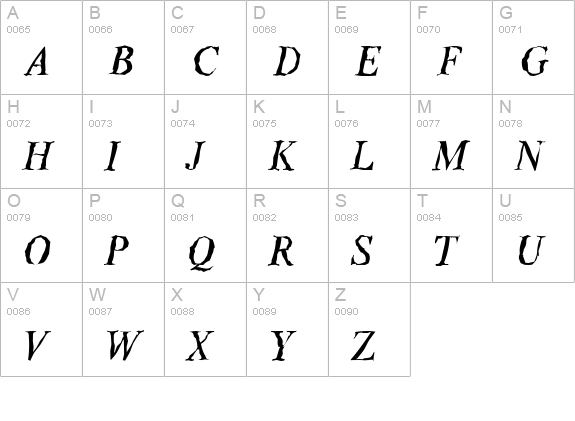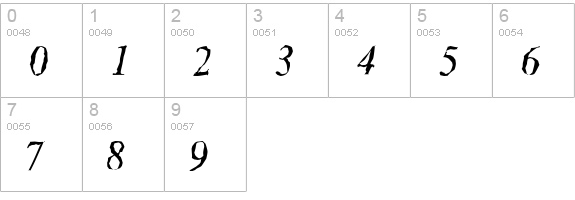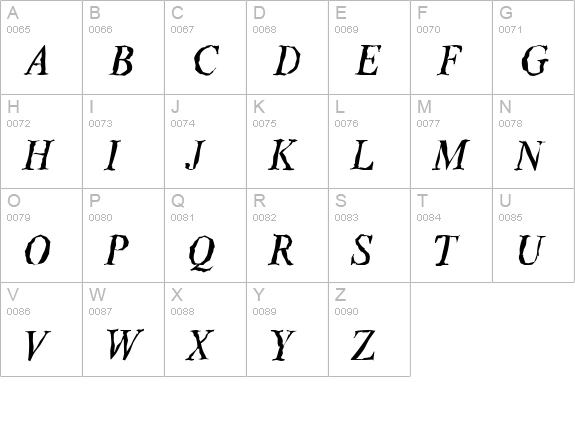
ThamesRandom-Italic Font Details
ThamesRandom-Italic is a distinctive, italic variant in the ThamesRandom typeface family \xE2\x80\x94 well suited to design and typography projects.
ThamesRandom-Italic font is a sleek and stylish typeface that exudes elegance and sophistication. Its unique italic design adds a touch of modernity while maintaining a classic appeal. Perfect for adding a touch of flair to any design project, this font is versatile and easy to read. Best of all, ThamesRandom-Italic font is available for free download at FontsMarket.com. So whether you're working on a professional project or simply want to add a touch of style to your personal creations, this font is a fantastic choice. Don't miss out on the opportunity to elevate your designs with this stunning and freely available font.